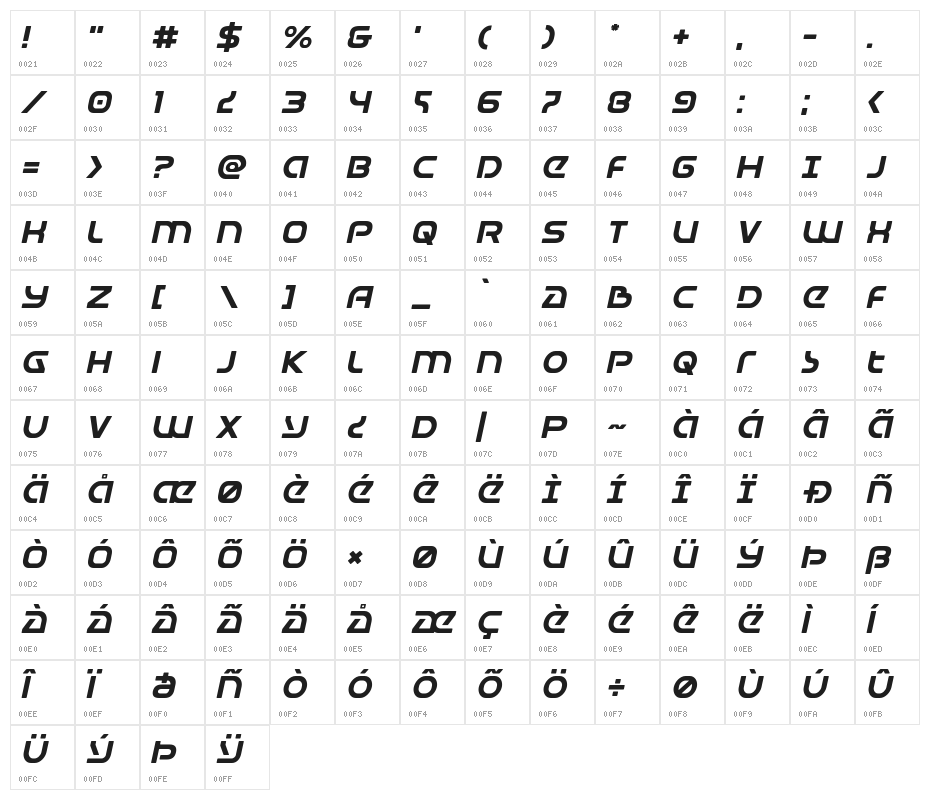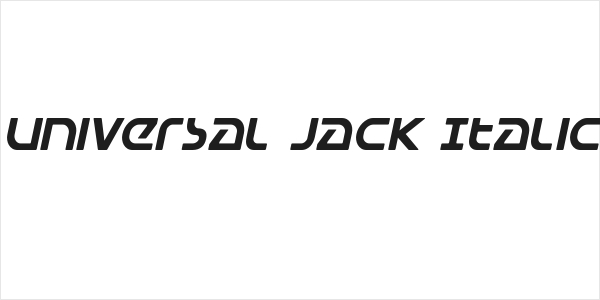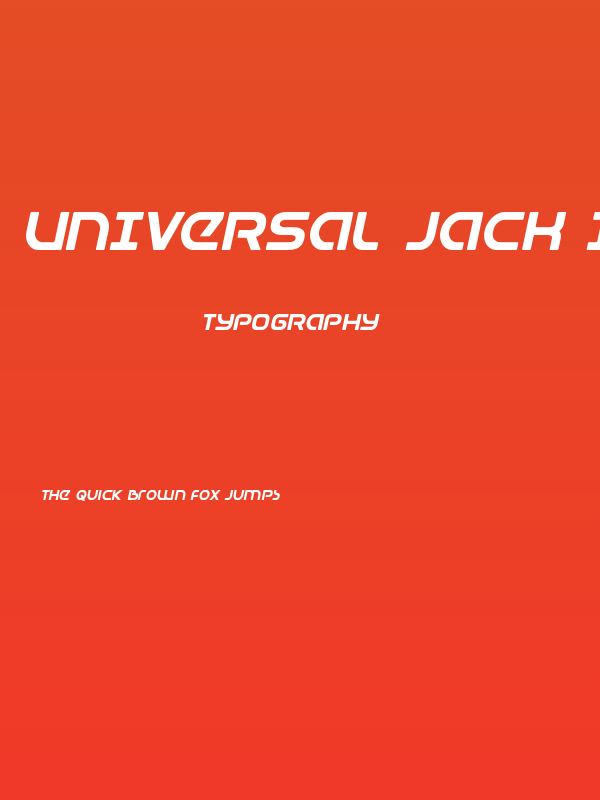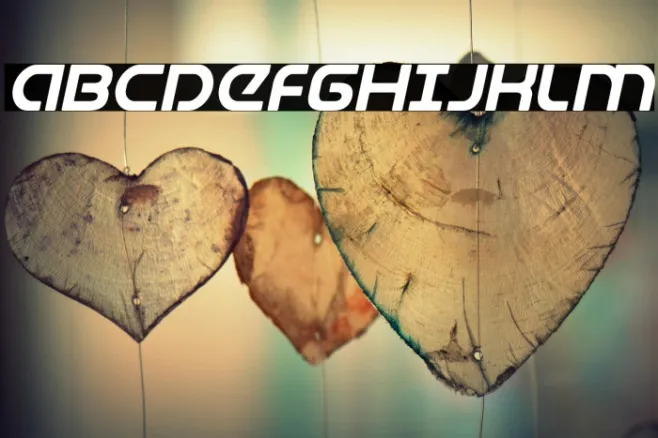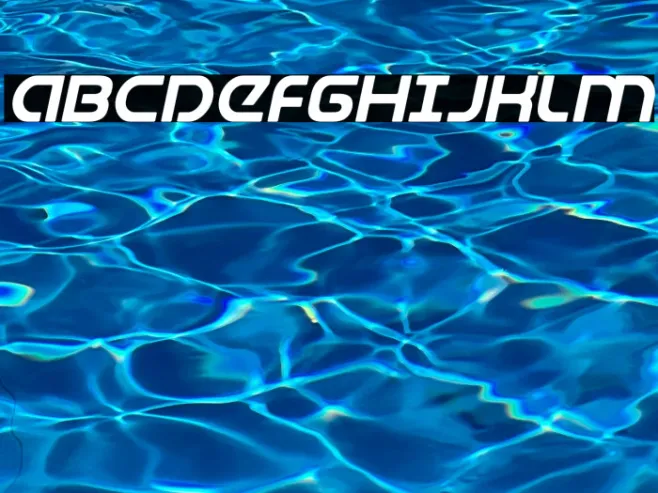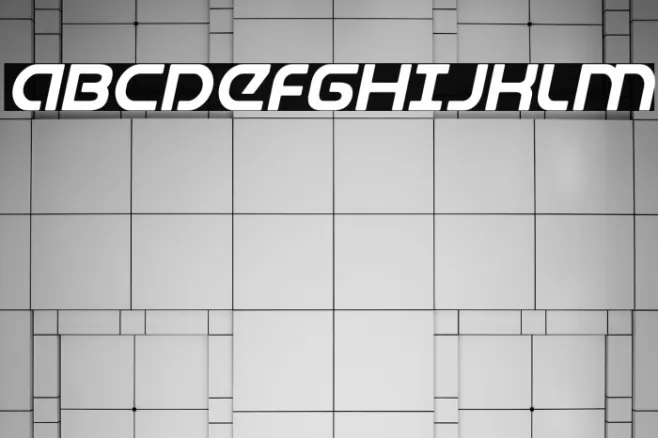
Universal Jack Italic Font
Universal Jack Italic Description
This font features a modern and dynamic design with a distinct italic slant, giving it a sense of motion and energy. The characters are bold and rounded, with a futuristic feel that is both sleek and stylish. The uppercase and lowercase letters maintain a consistent style, with smooth curves and sharp angles that create a harmonious balance. The numerals and special characters follow the same design principles, ensuring a cohesive look across all text elements. This font is ideal for projects that require a contemporary and energetic aesthetic.
| Proposed Projects | Ideal for branding, advertising, sports team logos, and tech-related projects. |